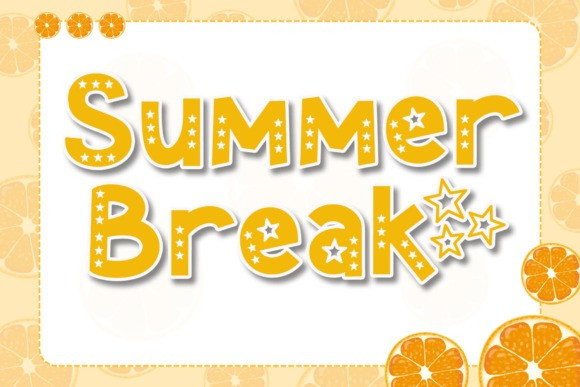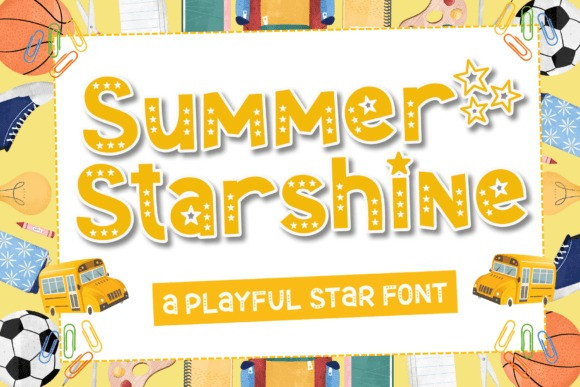
Summer Starshine Font, a fun and cheerful display font that brings the sparkle of summer right into your designs! Featuring hand-drawn stars and bold letterforms, it’s ideal for everything from July 4th party invites to classroom posters and summer flyers. The friendly vibe makes it a great fit for kid fun content, school crafts, and digital goodies. Let your message shine bright with this joyful and versatile typeface!